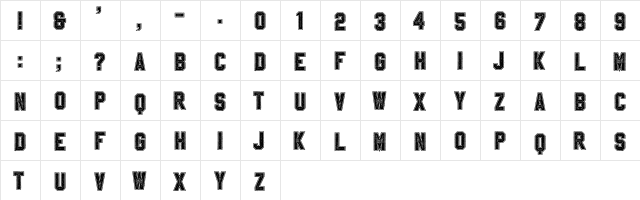
Sablon Up College Alt
Design Context for Sablon Up Typeface
Sablon Up brings high-energy athletic personality to the page — its confident, muscular forms are built for impact.
A natural choice for gym brands, fantasy sports, jersey lettering, and action-driven headlines.
Font Pairing: Use alongside a condensed or geometric sans for supporting copy — keep the pairing bold, functional, and free of ornament.
Pro Tip: Use Sablon Up in all-caps headlines where its athletic energy can fully express itself. Pair with a solid, simple sans for supporting text.